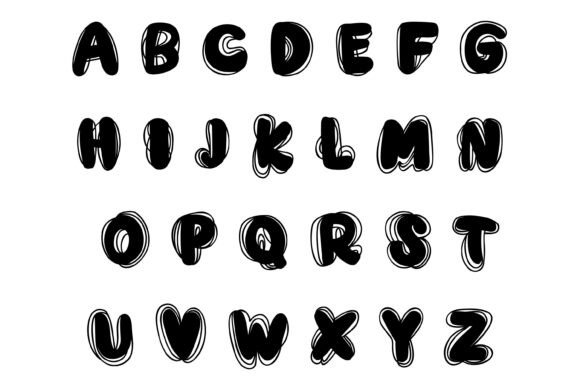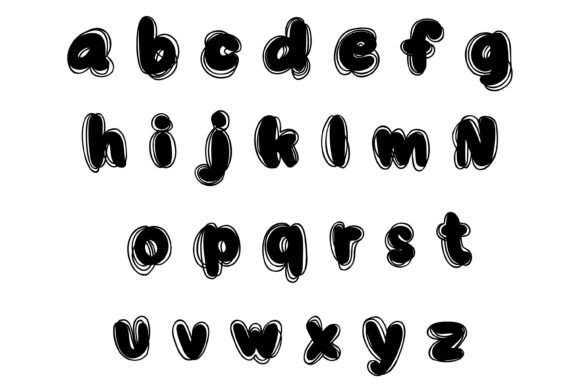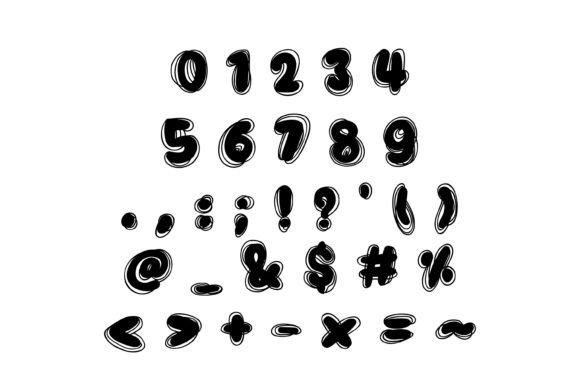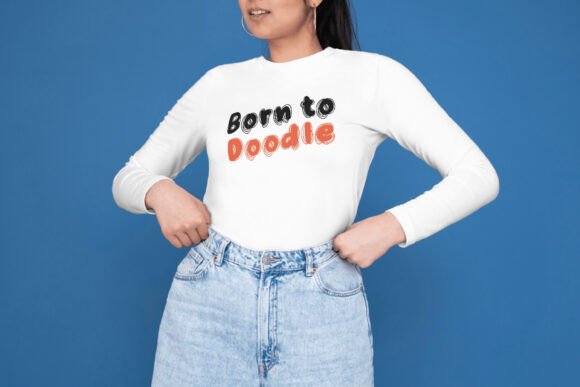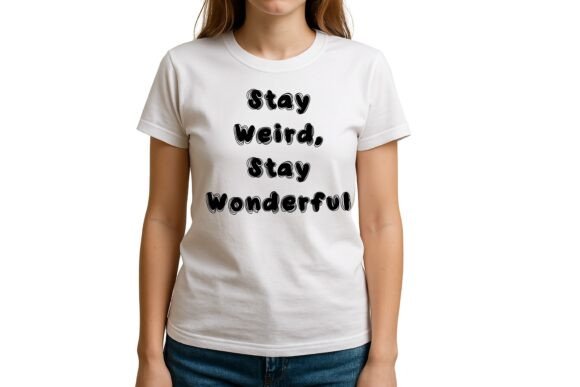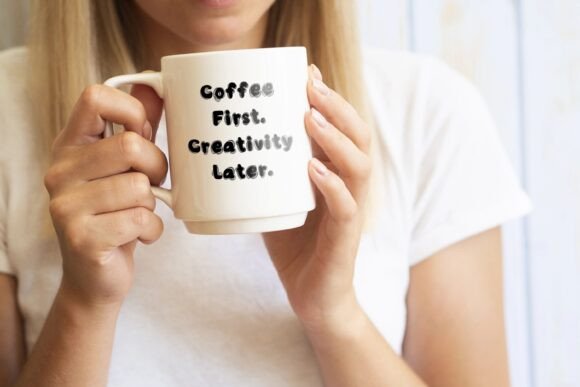
Introduction to Ink Swirl Font
Have you ever found yourself doodling in the margins of a notebook, letting your pen dance across the page in a joyful swirl of lines and curves? That’s the magic of the Ink Swirl Font, a high-quality, bold, and bouncy handwritten display font that captures the essence of hand-drawn creativity.
As designers, we’re always on the lookout for the perfect font to elevate our creative projects. And when it comes to adding a playful touch to our designs, Ink Swirl Font is an invaluable resource. With its unique scribbled outline effect and swirly texture, this font is perfect for children’s designs, creative branding, fun packaging, and quirky merchandise.
Key Features of Ink Swirl Font
- Unique, hand-drawn design that adds a creative touch to any project
- Perfect for creative projects that require a personal, artistic touch, such as invitations, posters, and branding materials
Honest Review: Ink Swirl Font
As a designer, I’m always on the lookout for high quality design resources to elevate my creative projects. The Ink Swirl Font caught my eye, and I decided to give it a try.
I was impressed by the unique, hand-drawn style of the font, which added a touch of personality to my design. The transparent background made it easy to layer over other elements, and the free download was a nice bonus.
Here are some things that work well about the Ink Swirl Font: ✨
- Unique, hand-drawn style adds visual interest to designs
- Limited character set may not be suitable for longer blocks of text
- Some users may find the font too ornate or distracting
Overall, I was impressed by the Ink Swirl Font’s creativity and versatility. While it may not be the best choice for every project, it’s definitely a great resource to have in your design arsenal.
Ink Swirl Font
To get the most out of the Ink Swirl Font, experiment with different font sizes, colors, and combinations. You can also use the font in conjunction with other design elements to create a unique and eye-catching design.
The Ink Swirl Font is ideal for creative projects such as:
- Wedding invitations
- Birthday party decorations
- Personalized greeting cards
Alternatives to Ink Swirl Font
The Brush Script Font is a high-quality, handwritten font perfect for creative projects that require a personal touch. It’s ideal for use in business cards, menus, and other promotional materials. This font is available for free download with a transparent background, making it easy to customize and integrate into your design. Compared to Ink Swirl Font, Brush Script Font has a more fluid, cursive texture and is better suited for projects that require a warm, inviting feel.
Q: Can I use the Ink Swirl Font with a transparent background?
Yes, the Ink Swirl Font is designed to work seamlessly with transparent backgrounds, making it an ideal design resource for creating stunning visual effects and graphics.